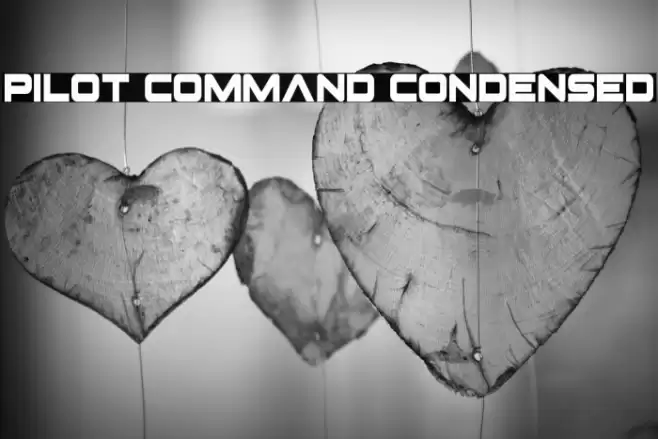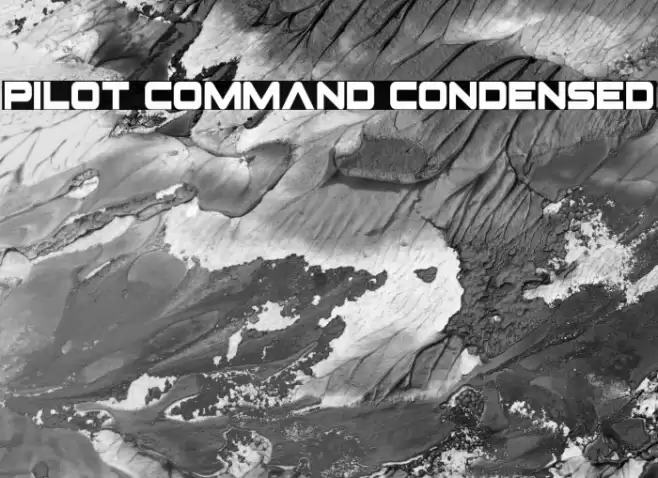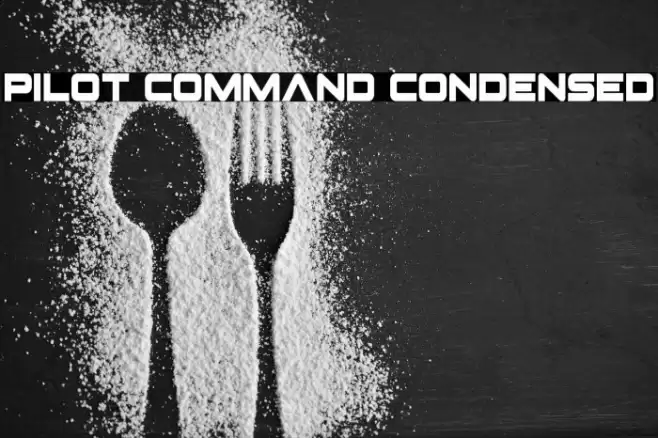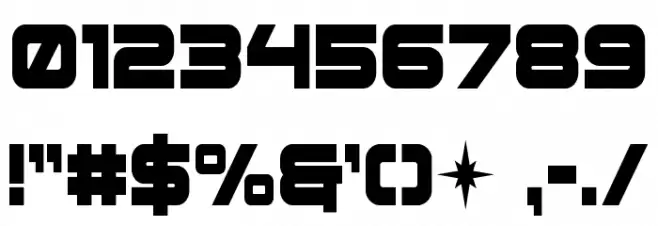
Pilot Command Condensed Font
Pilot Command Condensed Description
This font features a bold, geometric design with a strong presence. The characters are condensed, creating a compact and efficient use of space. The uppercase letters are uniform in height, with sharp angles and clean lines that convey a sense of modernity and strength. The numbers and special characters maintain this bold, angular style, ensuring consistency across all glyphs. The font's design is ideal for making a strong visual impact, with its high contrast and solid structure.
A bold, geometric, and condensed font with a modern and strong appearance from Uncategorized fonts.
- Font: Pilot Command Condensed
- Proposed Projects: Ideal for branding, headlines, posters, and any design requiring a bold statement.
- Character Spacing: Tight